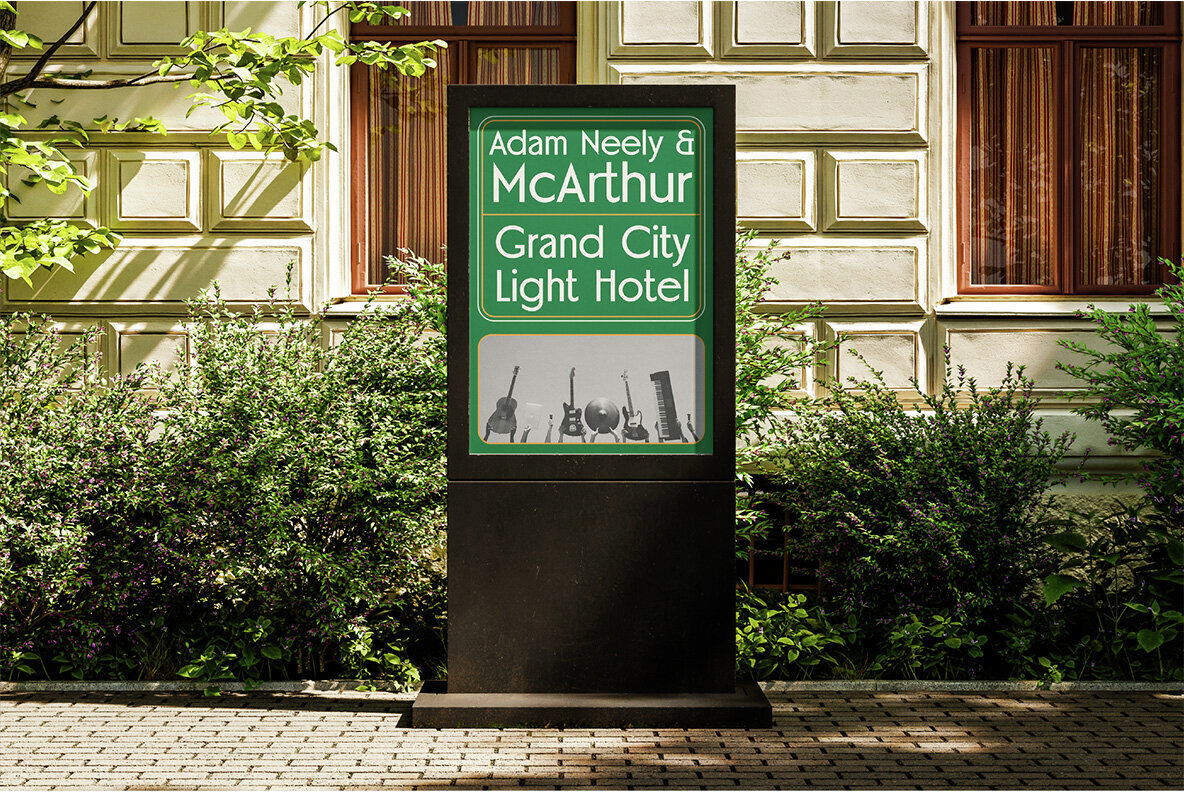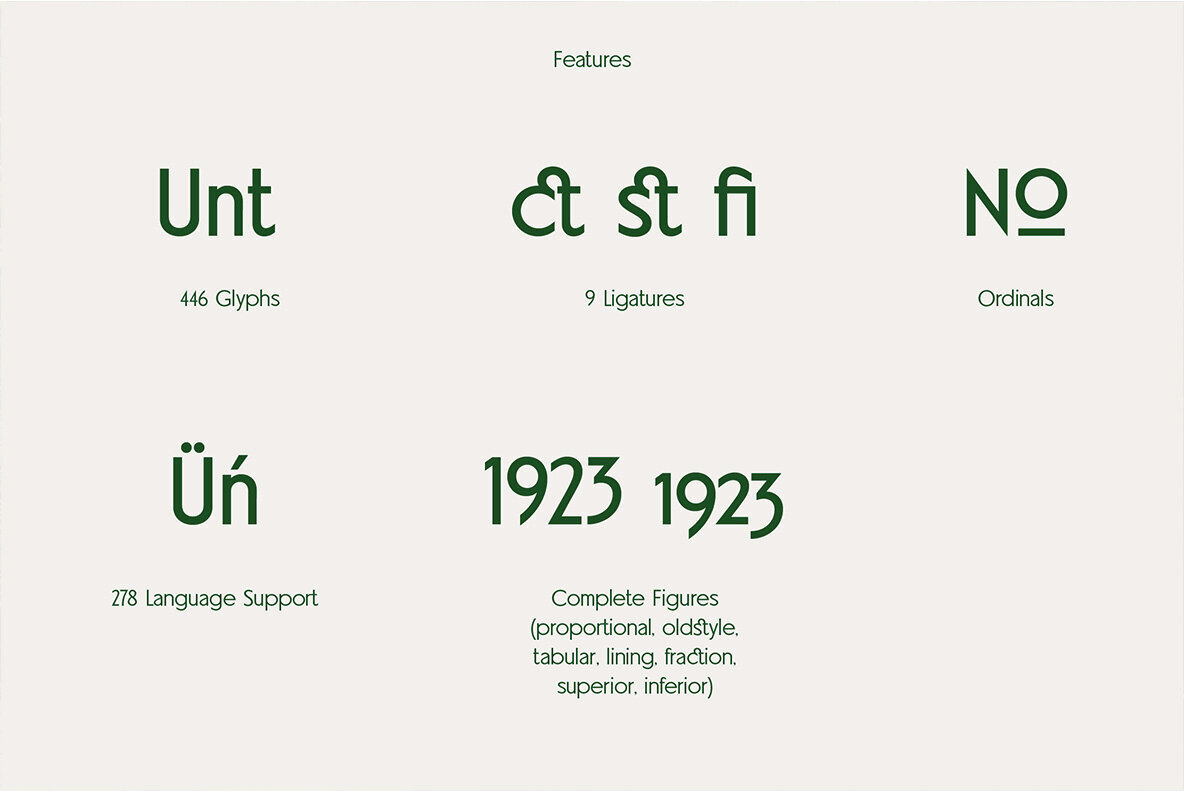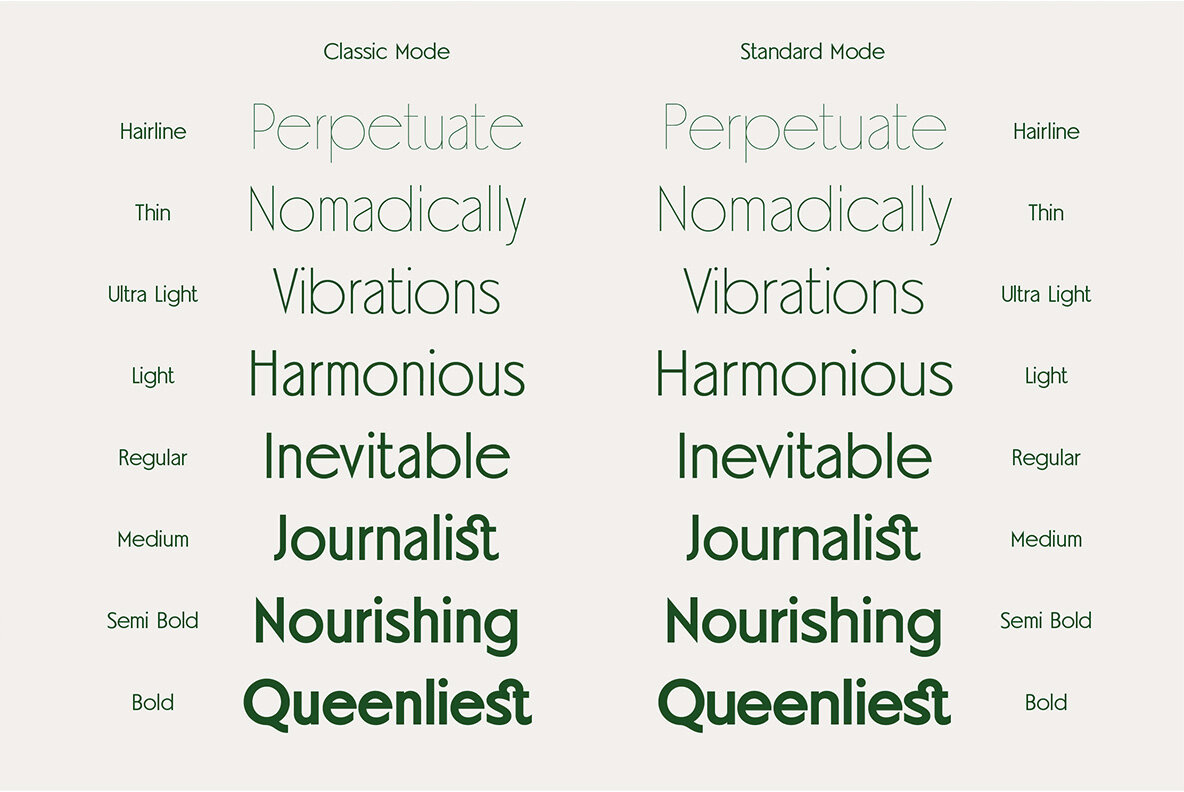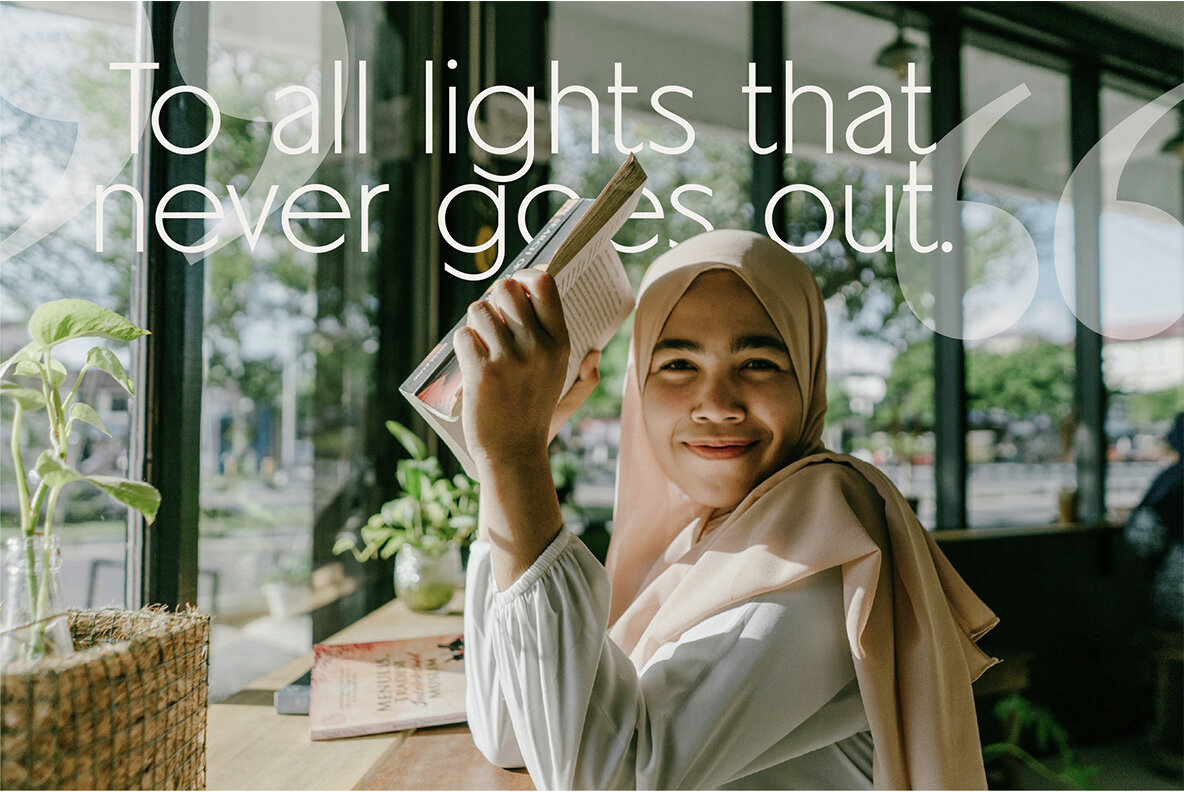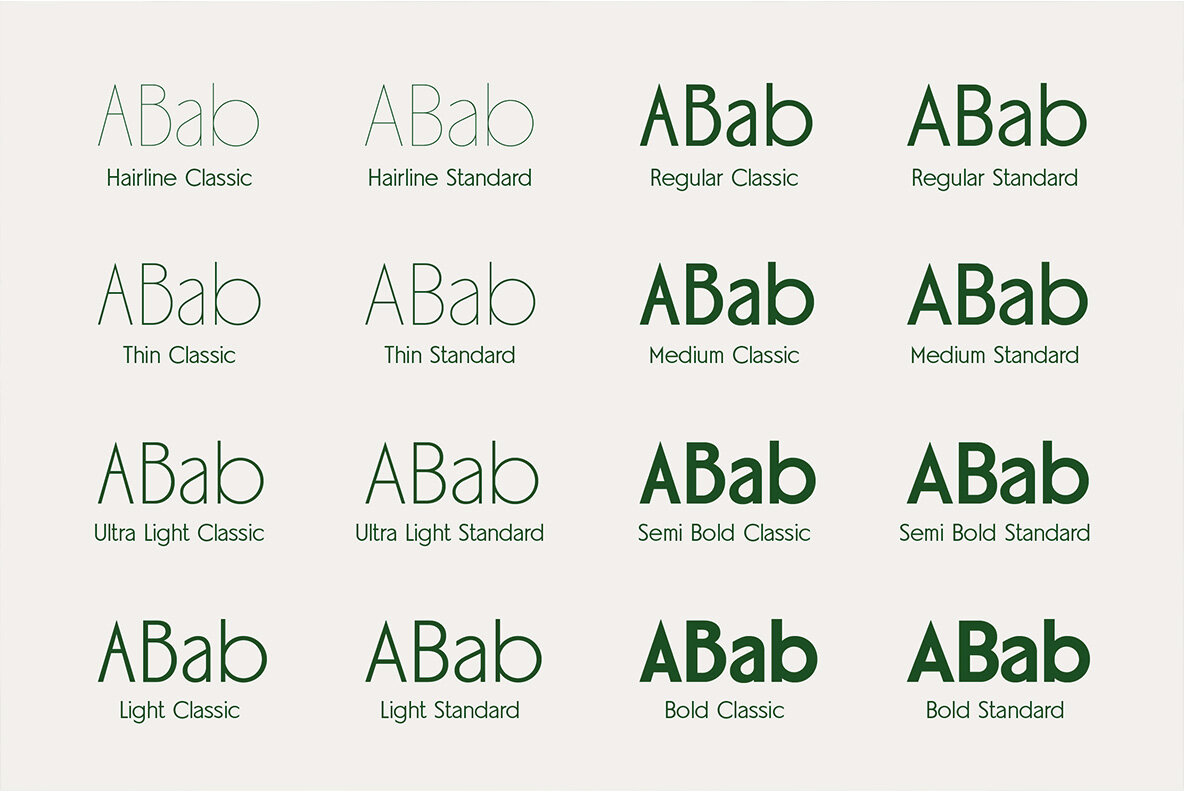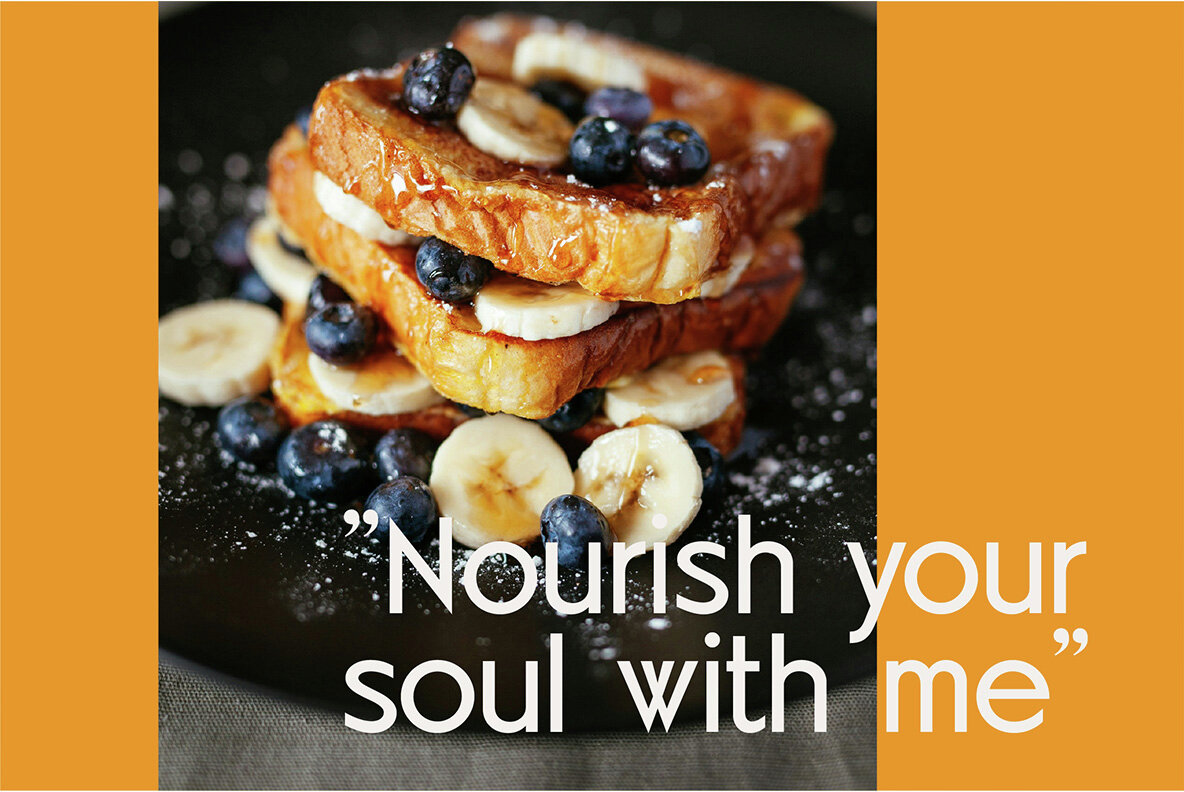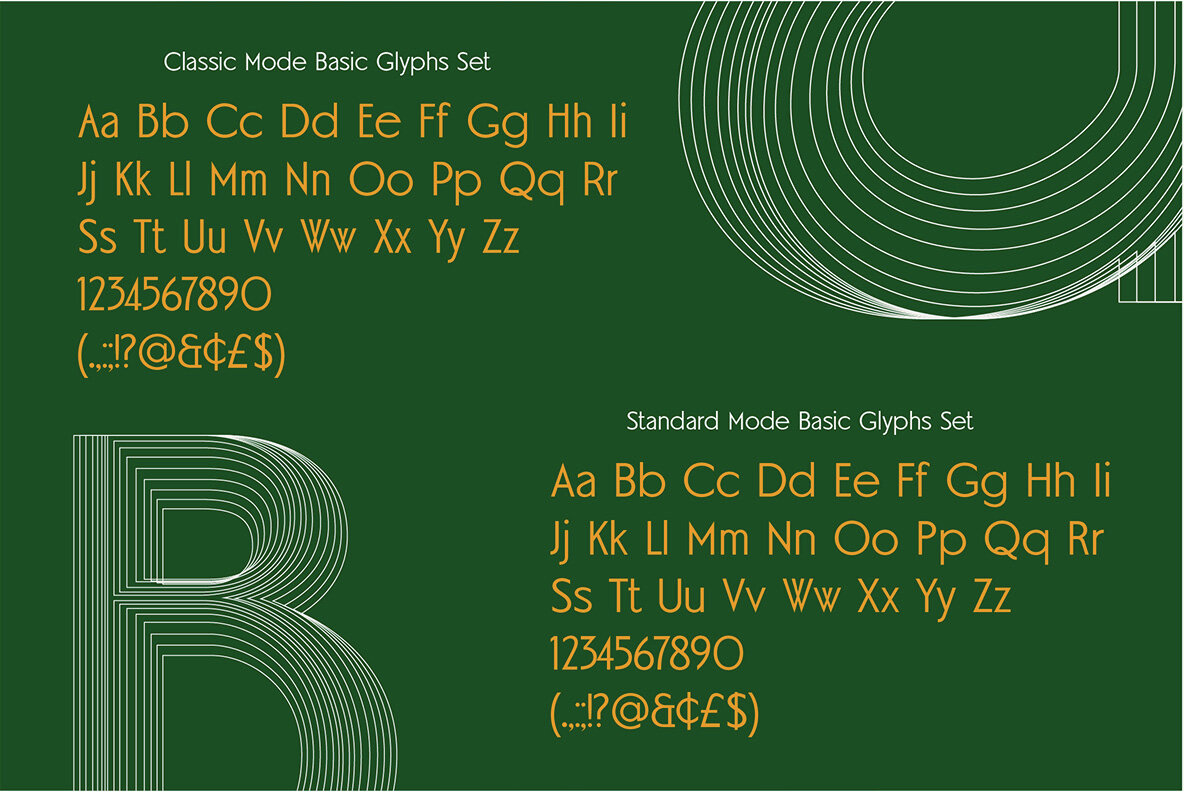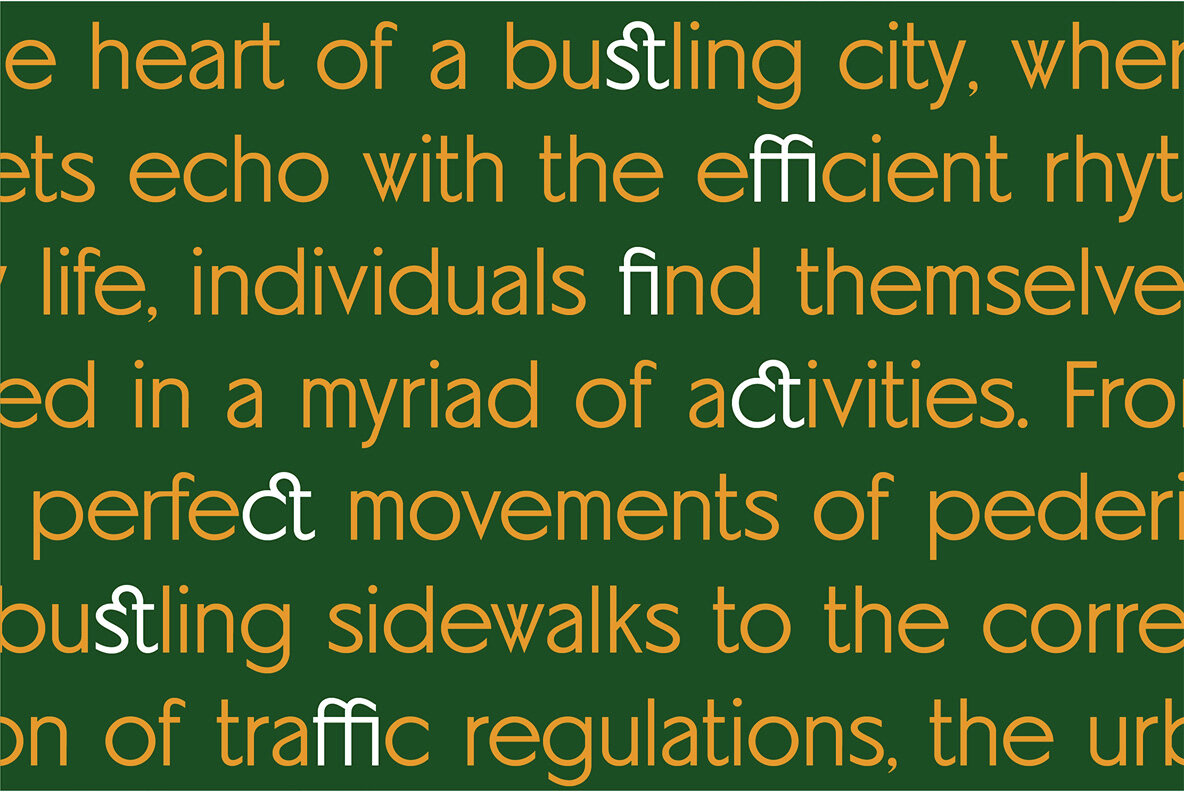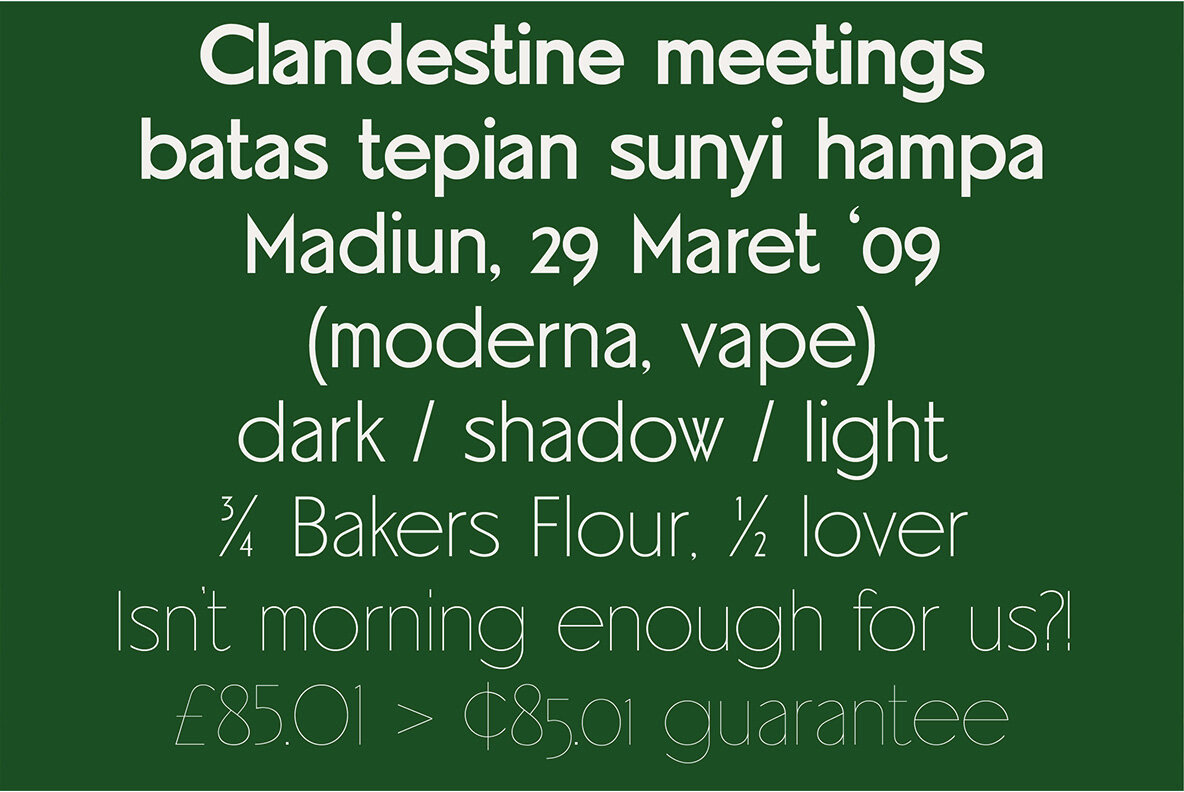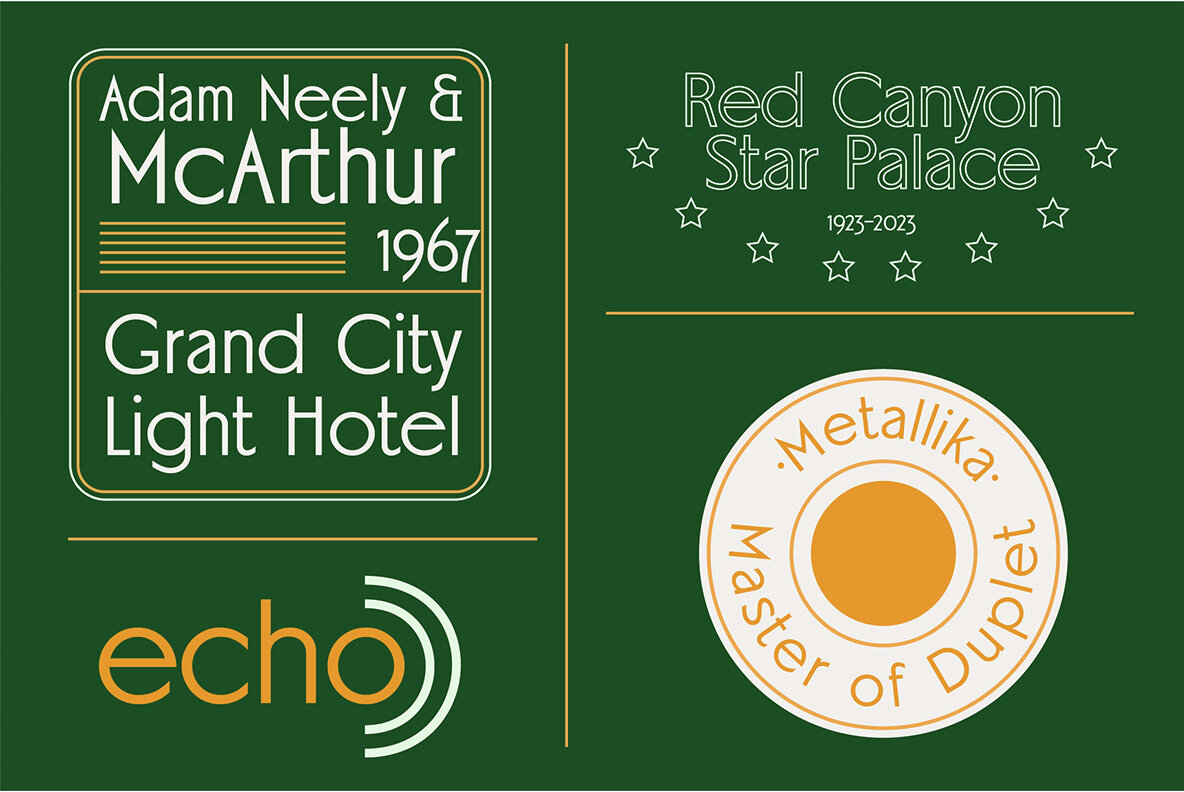
Universata Font
Universata is a groundbreaking fusion of contemporary chic and timeless grace. Born from a relentless pursuit of elegance, this typeface marries the crisp lines of sans-serif with the enduring allure of Roman sophistication. The result is a mesmerizing blend of modern simplicity and traditional sophistication, perfect for creating captivating headlines and titles. This version (0.1) contains:
With 446 glyphs, 9 ligatures, ordinals, and support for 278 languages, Universata offers extensive versatility for diverse design needs. Its impeccable balance and attention to detail make it an indispensable tool for designers seeking to make a bold impact. Universata doesn't just catch the eye; it captivates it, leaving a lasting impression that resonates with your audience.